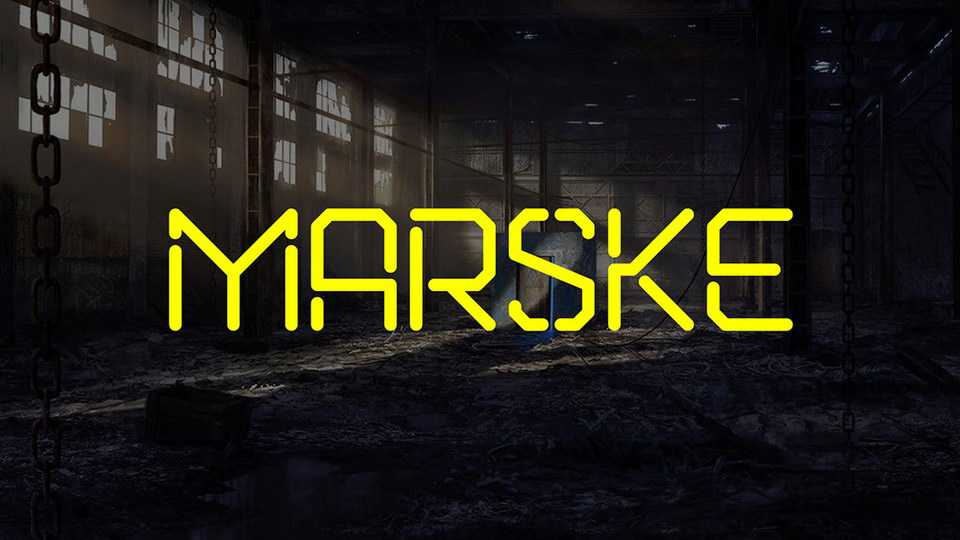
Download Marske font, an all caps stencil display typeface based on a square shapes. It’s suitable for headlines, posters, signage, prints and other display use.
Designer: Sergiy Tkachenko